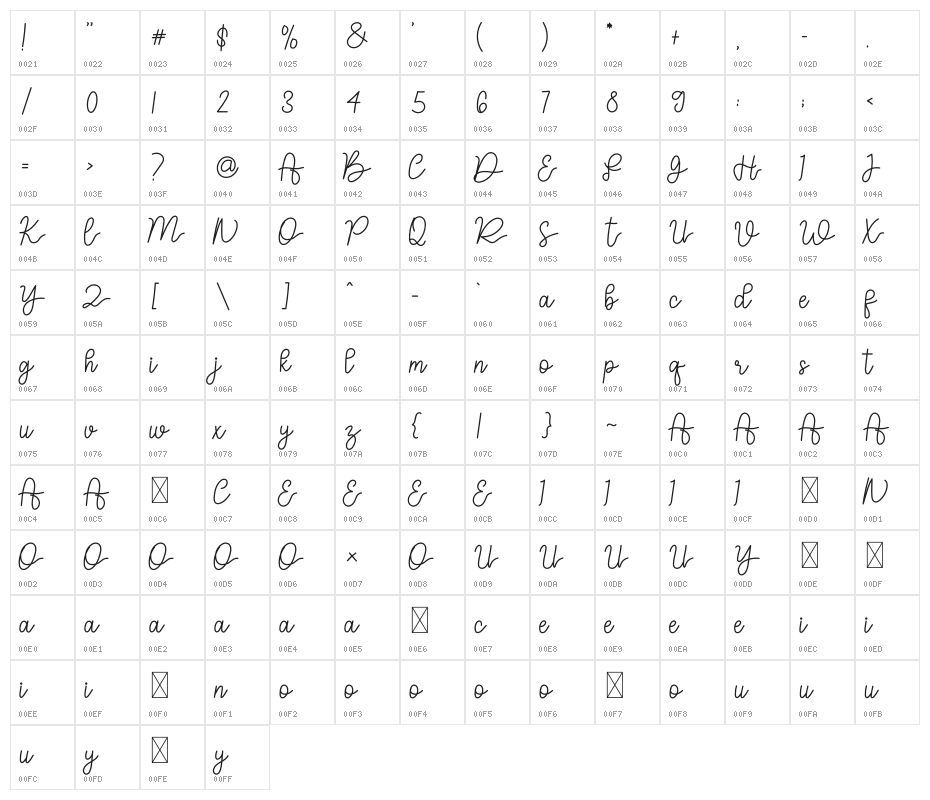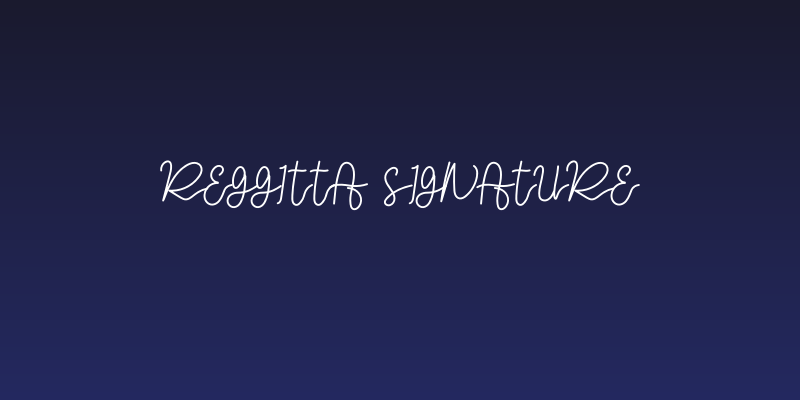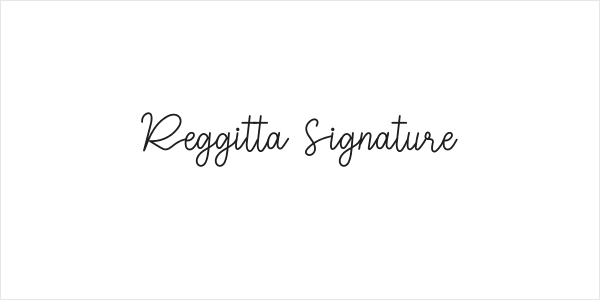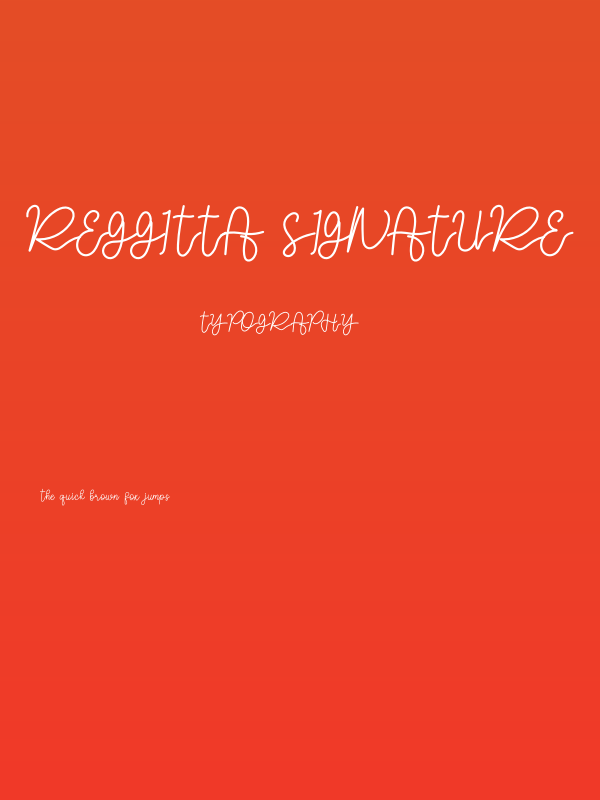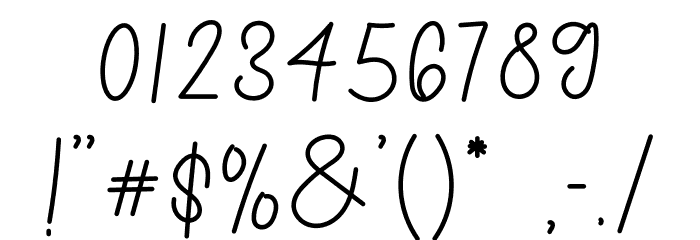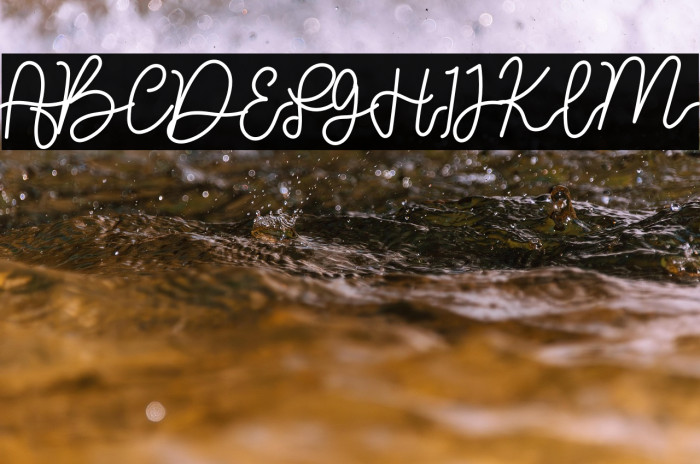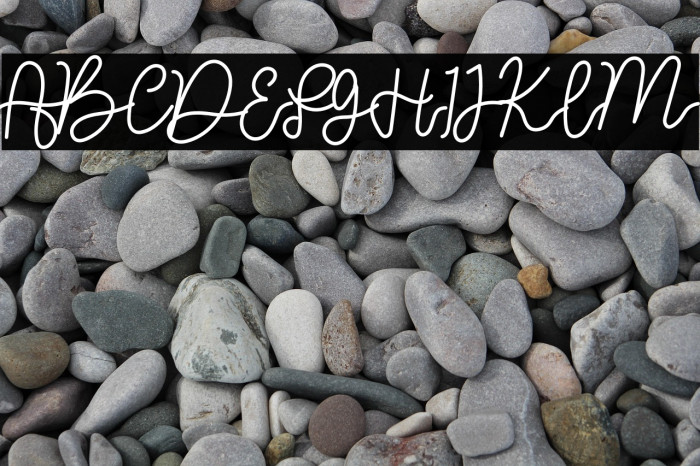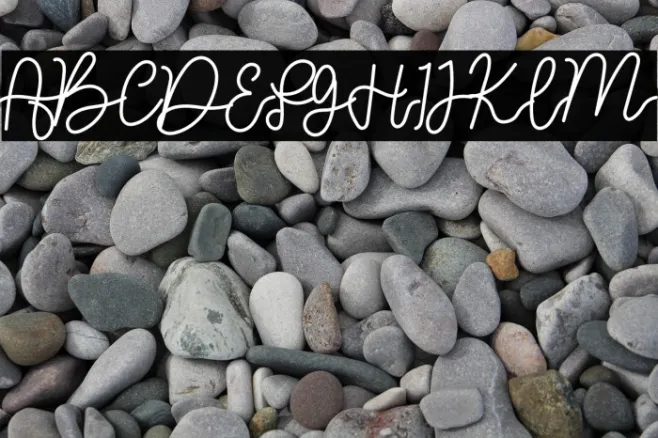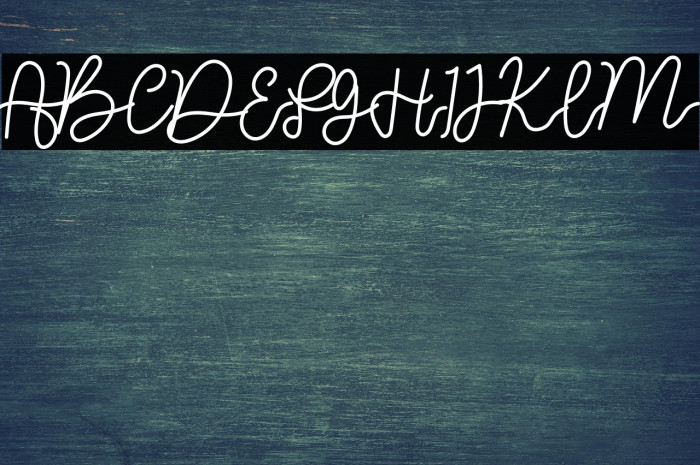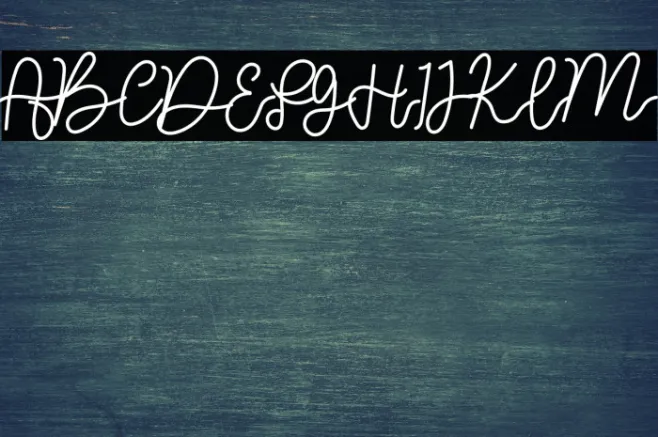
Reggitta Signature Font
Reggitta Signature Description
This font exudes a sophisticated and elegant handwritten style, characterized by its fluid and continuous strokes. The letters are interconnected, creating a seamless flow that mimics natural handwriting. The uppercase letters are tall and graceful, while the lowercase letters maintain a consistent rhythm and balance. The numerals and special characters are crafted with the same attention to detail, ensuring a cohesive look throughout. This font is perfect for adding a personal touch to any project, with its stylish and modern appeal.